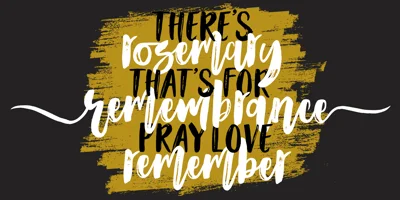
Rosemary Love Font
Rosemary Love Font excels in romantic design applications including herbal wedding invitations, natural romance branding, botanical love letters, organic beauty products, herb garden signage, romantic cooking classes, natural wellness retreats, aromatic therapy centers, romantic restaurant menus, and love-infused lifestyle campaigns. This fragrant typeface brings botanical romance to nature-inspired design projects.
What makes Rosemary Love Font truly exciting is its perfect fusion of herbal tradition with romantic sentiment through delicate letterforms that evoke the aromatic beauty and memory-enhancing properties of rosemary herbs. The font features gracefully crafted characters with botanical proportions and romantic appeal that convey natural love, remembrance, and the timeless connection between aromatic herbs and emotional memory. Its herbal personality and romantic character make it ideal for brands celebrating natural romance, herbal traditions, and audiences who appreciate botanical beauty, aromatic experiences, and the profound connection between natural scents and romantic memories that create lasting emotional bonds.
The Rosemary Love Font family typically includes Regular weight with potential herbal flourishes and romantic elements that enhance its botanical character. These aromatic options provide designers with complete natural romance styling while maintaining the font's distinctive herbal elegance and romantic presentation across various botanical applications and love contexts.
Whether you're developing natural romance branding, creating herbal campaigns, or designing botanical marketing materials, Rosemary Love Font delivers the herbal authority and romantic sophistication that nature-love projects require. Its exceptional fragrance and romantic appeal make it invaluable for designers working with herbal businesses, romantic venues, and natural love brands requiring typography that celebrates botanical romance, herbal wisdom, and the beautiful tradition of using aromatic herbs to enhance romantic experiences and create lasting memories through the powerful connection between natural scents and emotional remembrance.